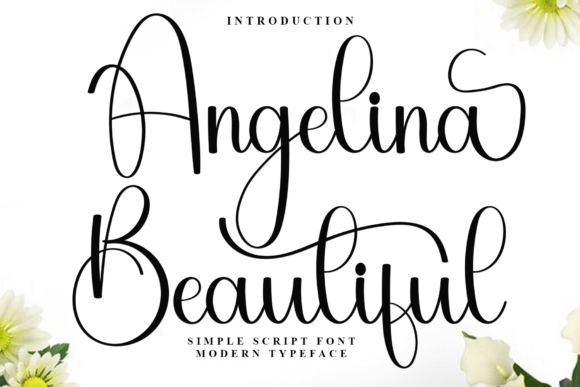
Discover the Timeless Elegance of Angelina Beautiful Font
Have you ever been working on a project, pouring your heart and soul into every detail, only to feel like something is missing? That’s when the magic happens – you stumble upon the perfect font that elevates your design to new heights. For me, that moment came when I discovered the Angelina Beautiful Font. This stunning font is a masterclass in elegance and sophistication, with a contemporary atmosphere that’s sure to captivate your audience.
With its impeccable form and balanced design, the Angelina Beautiful Font is the perfect addition to any project. Whether you’re a seasoned designer or just starting out, this font is a valuable tool in your creative arsenal. Its PUA encoding makes it easy to access all the amazing glyphs and ligatures, giving you endless possibilities for customization.
Angelina Beautiful Font Key Features
- Unique Characteristics: Elegant, cursive script with a touch of elegance and sophistication, ideal for creative projects and designs
- Font Style: Available in regular and bold weights, with ligatures and swashes for added flair
Designer Review: Angelina Beautiful Font
Overall, I think Angelina Beautiful Font has some nice qualities that make it a solid choice for designers, but it also has some limitations that might make it less appealing to others. ✨
- ✨ Elegant, cursive script that’s perfect for adding a touch of sophistication to your designs.
- ✨ Beautifully rendered swashes and flourishes that add visual interest and personality to your text.
- ✨ Highly legible and easy to read, even at smaller font sizes.
- ⚠️ Limited character set and language support, which might make it less suitable for projects that require a lot of text or multiple languages.
- ⚠️ Some users may find the font too ornate or over-the-top, which could be a distraction from the content.
- ⚠️ Not ideal for use in small or low-resolution contexts, where the font’s intricate details might become lost or distorted.
Angelina Beautiful Font is a lovely addition to any designer’s toolkit, but it’s not a one-size-fits-all solution. If you’re looking for a elegant, cursive script for a special project or a branding identity, this font might be just what you need. However, if you need a font that’s highly customizable or has extensive language support, you might want to look elsewhere.
Angelina Beautiful Font is ideal for:
- Artistic and creative projects
For best results, use Angelina Beautiful Font in combination with bold or cursive fonts to create a visually appealing design.